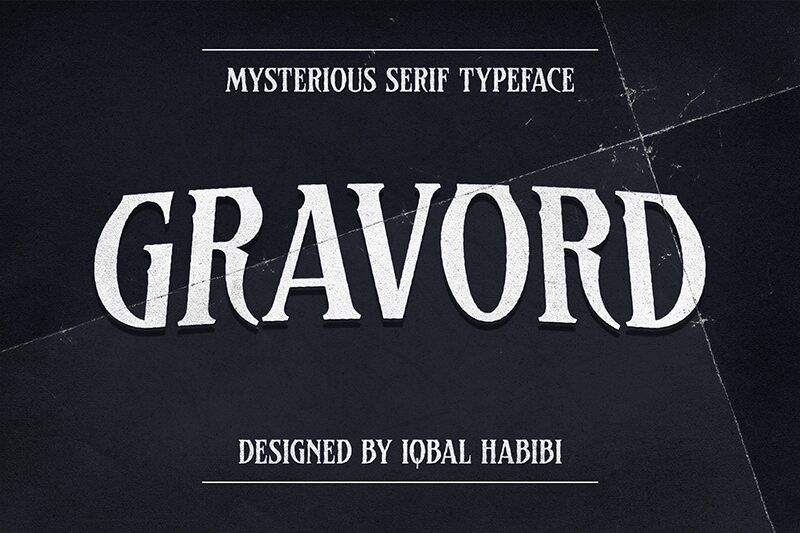
Gravord font family was designed by Type Combo. It contains two free font styles. Inspired by classic gothic typography, Gravord makes an elegant form of writing that holds, at the same time, a touch of mystery. With its traditional yet modern character, it can easily be recognized in any context where it is used.
The font looks perfectly stylish on wedding invitations, event and art posters, and clothing and apparel designs. Additional uses include packaging design, tattoos, logos, branding, book covers, UI design, social media graphics, and more.